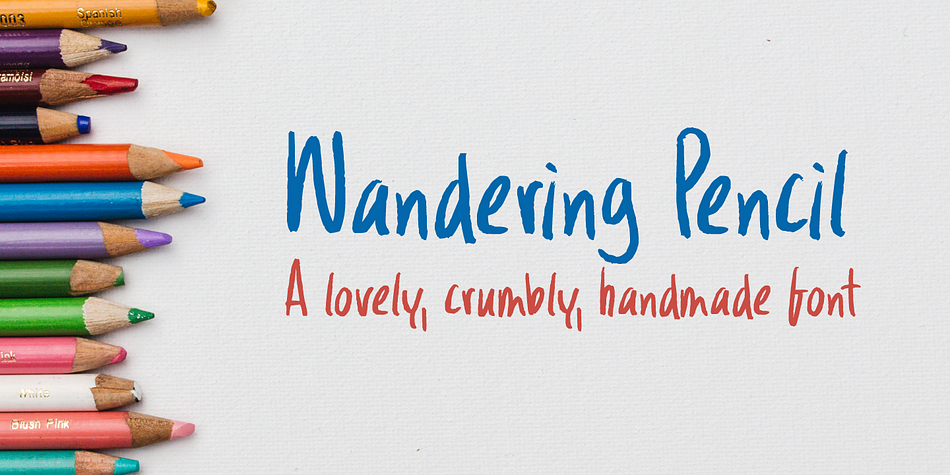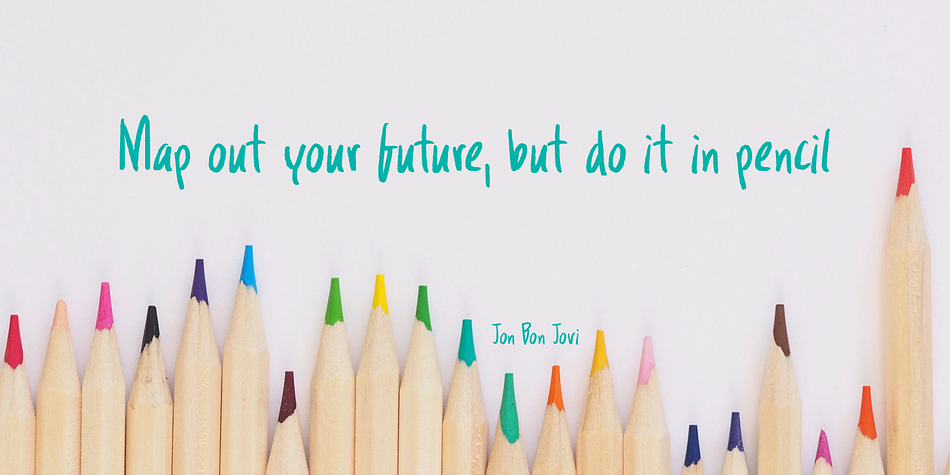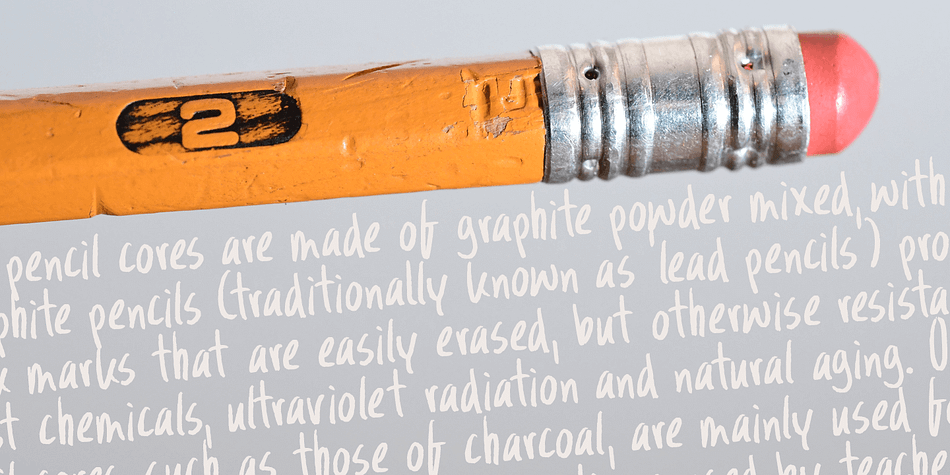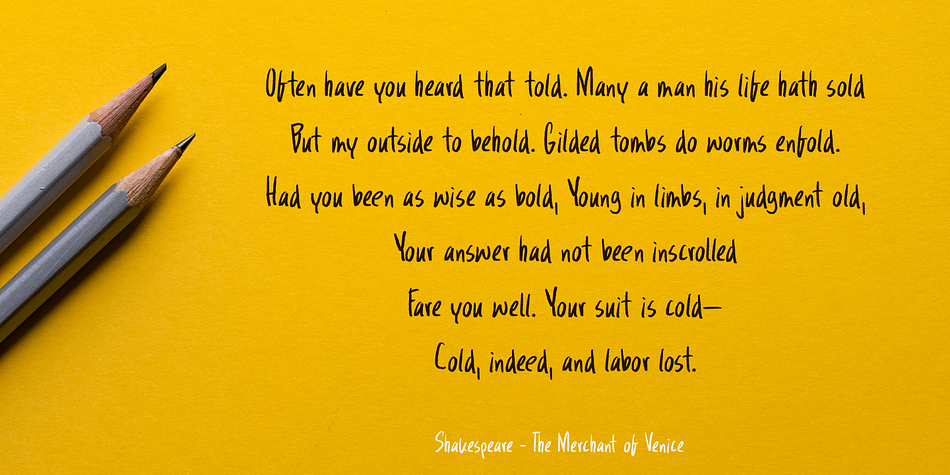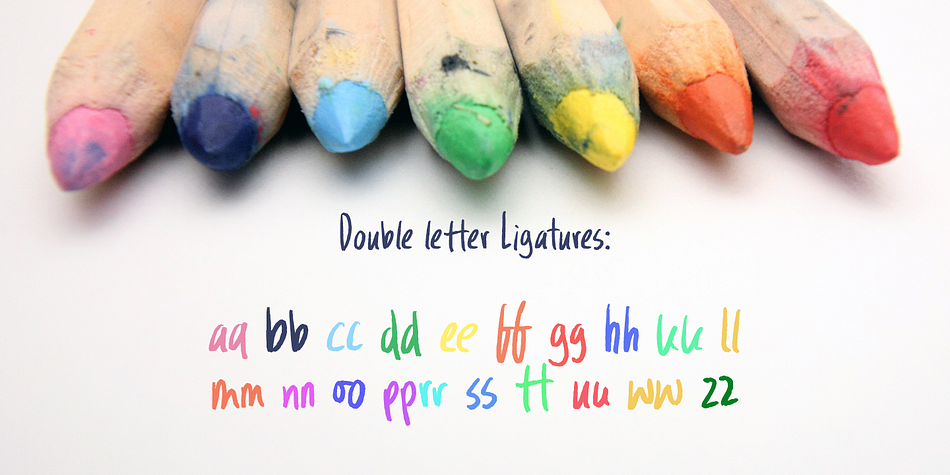
Designed by David Kerkhoff, Wandering Pencil is a hand drawn font family. This typeface has two styles and was published by Hanoded.
I have a lot of pencils, but when I need one, they seem to have grown legs and have disappeared! When I decided I wanted to create a pencil font, it took me a long time to find the right pencil for the job!
Wandering Pencil is a nice, handmade font. It is a bit shaky, a bit rough, but it does have class and will look nice on your designs!
Comes with diacritics and double letter ligatures for the lower case.